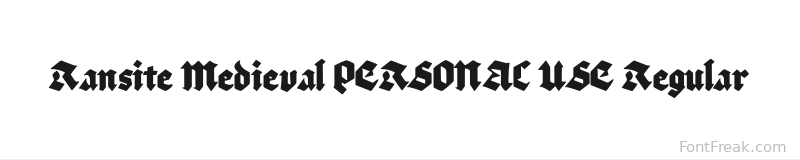
Ransite Medieval PERSONAL USE Regular
About Ransite Medieval PERSONAL USE Regular
The Ransite Medieval PERSONAL USE Regular font by Mans Greback is a striking display font that beautifully captures the essence of medieval typography. This serif font showcases intricate letterforms with a distinctive Gothic flair, characterized by bold, angular strokes and decorative elements that evoke a sense of history and artistry. The font features a medium stroke weight and moderate contrast, which provides clarity while maintaining its ornate style. The spacing is well-balanced, allowing each character to stand out without overwhelming the design.
This font is particularly well-suited for a variety of creative applications. It can enhance wedding invitations, lending an air of elegance and tradition to the event. Its dramatic style makes it an ideal choice for movie posters, especially for fantasy or historical genres, where a medieval theme is prevalent. Restaurant menus featuring rustic or themed cuisine can also benefit from the unique aesthetic of Ransite Medieval, creating an inviting atmosphere. Additionally, content creators looking to add a historical touch to their digital projects will find this font an inspiring choice for blogs or social media graphics.
Targeted towards graphic designers, small business owners, and content creators, Ransite Medieval PERSONAL USE Regular font free download offers a versatile tool for anyone seeking to make a statement through their designs. The font stands out not only for its visual appeal but also for its ability to convey a sense of nostalgia and artistry. Its unique character set and attention to detail allow for creative expression in a way that few fonts can match, making it a valuable addition to any designer's toolkit.